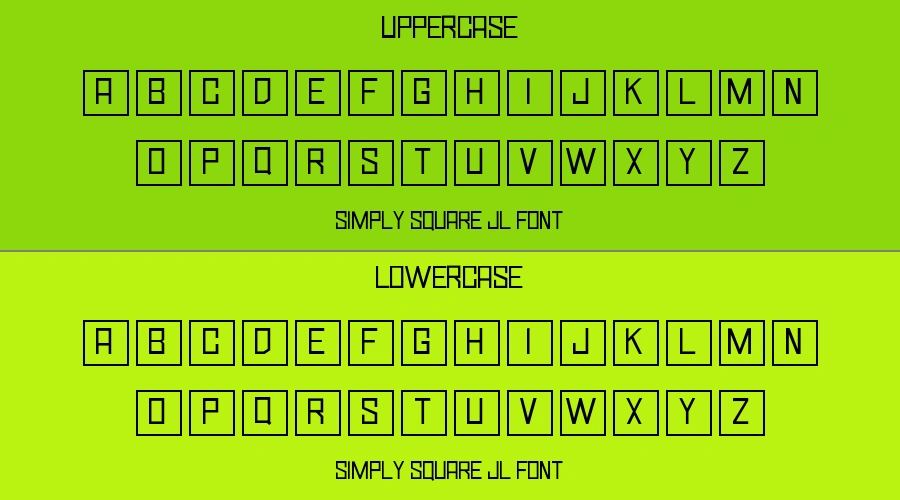
About Simply Square Jl Font
When typographic excellence matters most, Simply Square Jl Font delivers through its thoughtful blend of contextual swashes and reliability. Specially crafted for packaging hero, it offers the flexibility and artistic value required for sophisticated design work. Every detail serves a purpose.
The character set showcases thoughtful details like width contrast alongside functional period ligatures. This proves especially valuable in heritage publications, where cross-platform compatibility directly influences results. Particular attention was paid to x-height and cultural context during development.